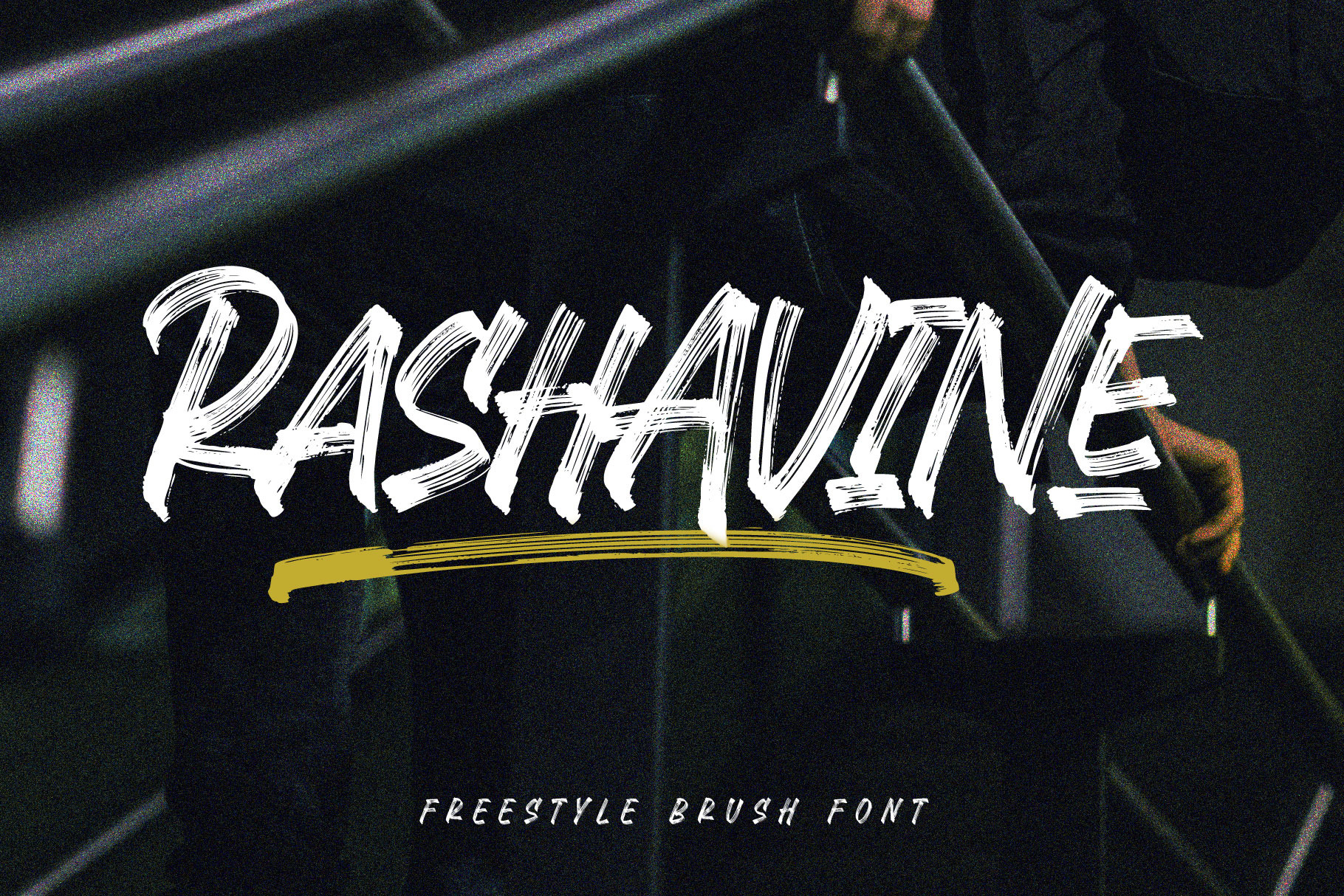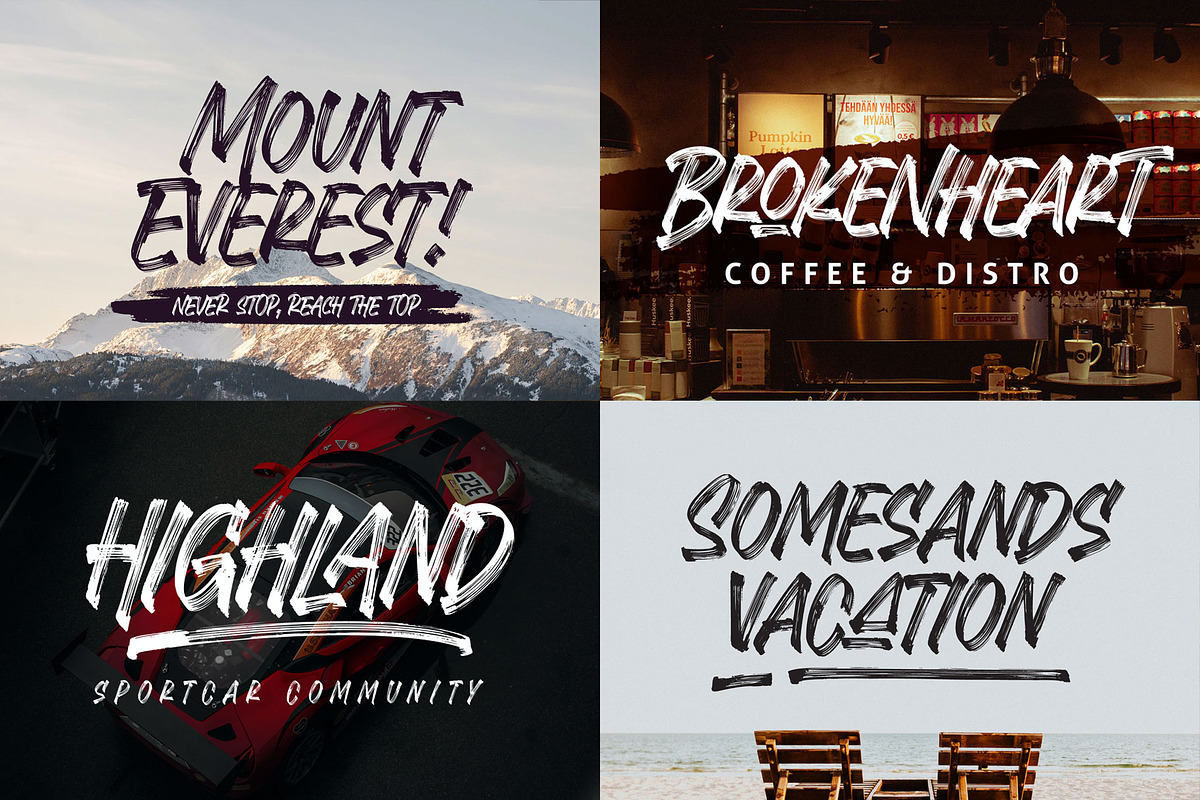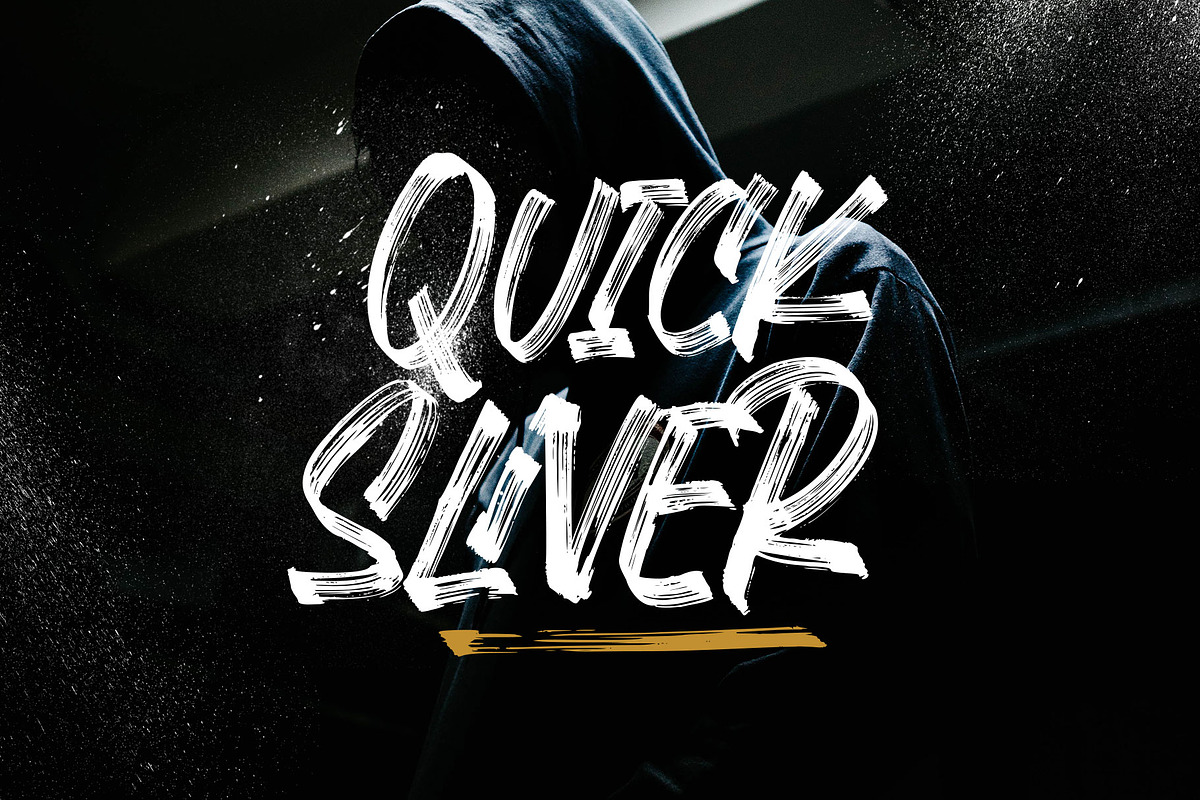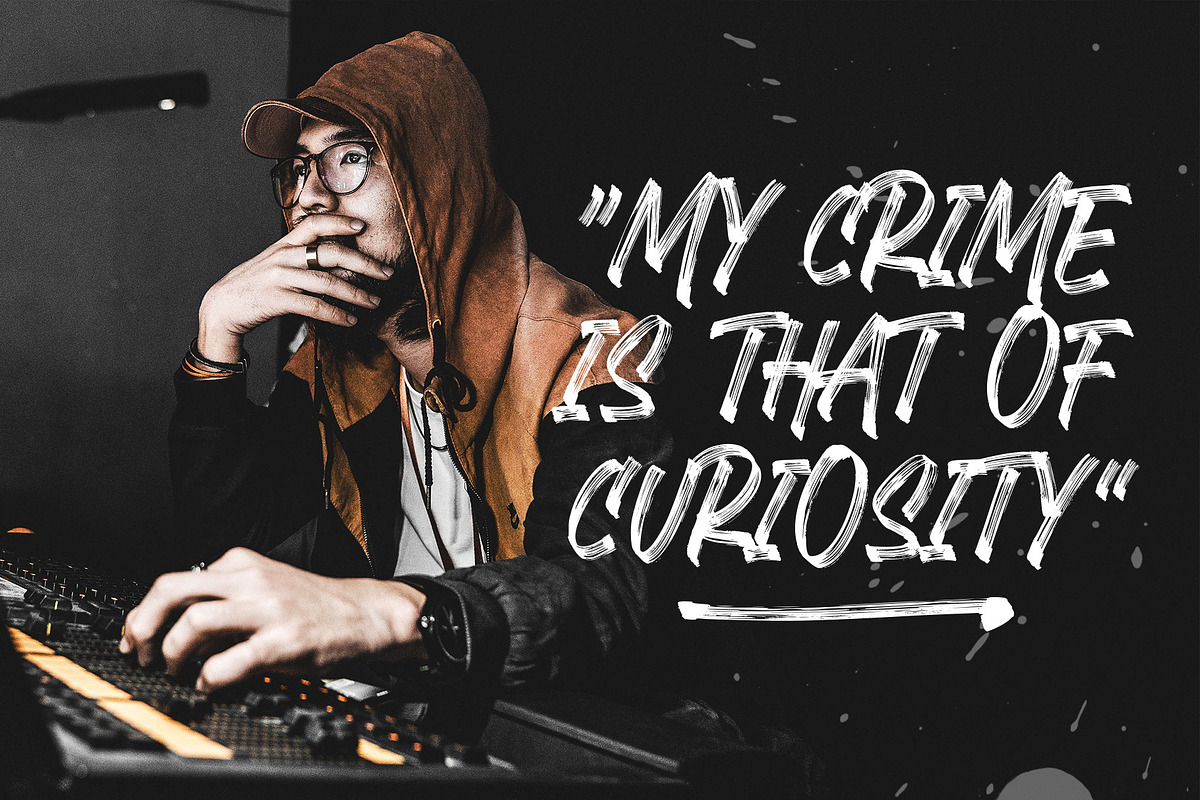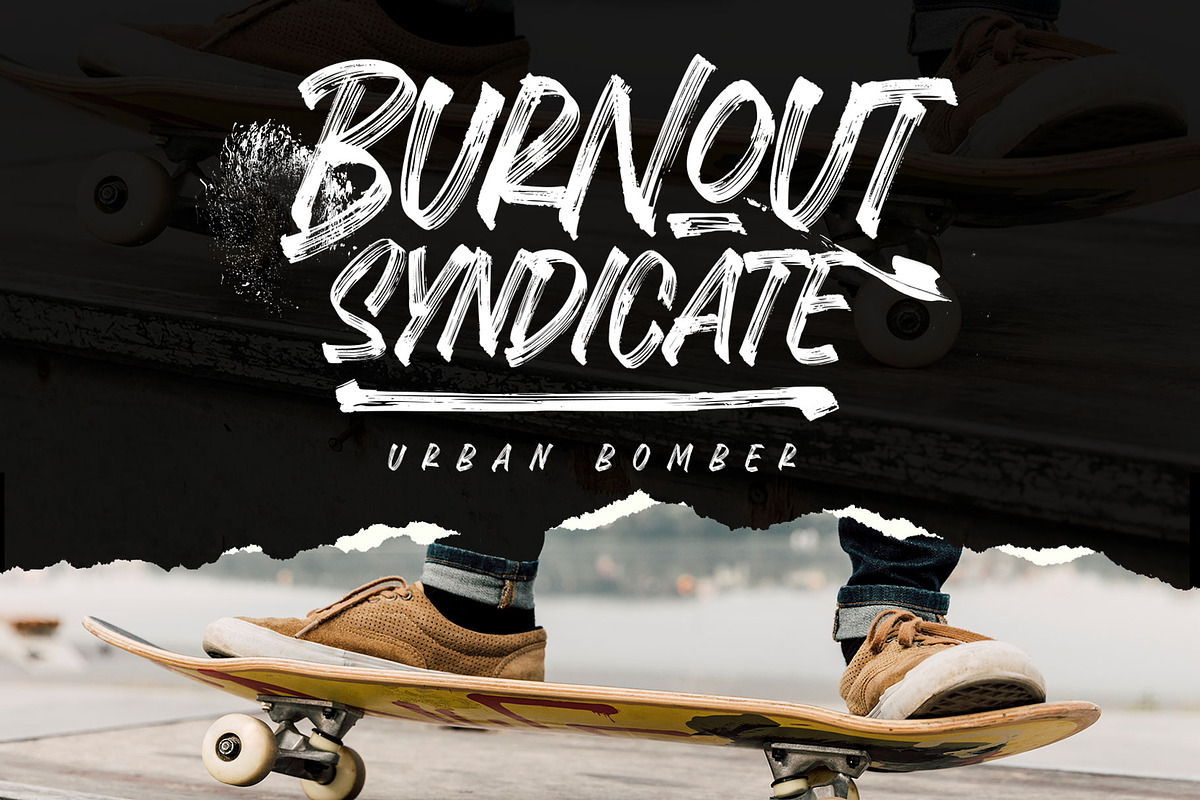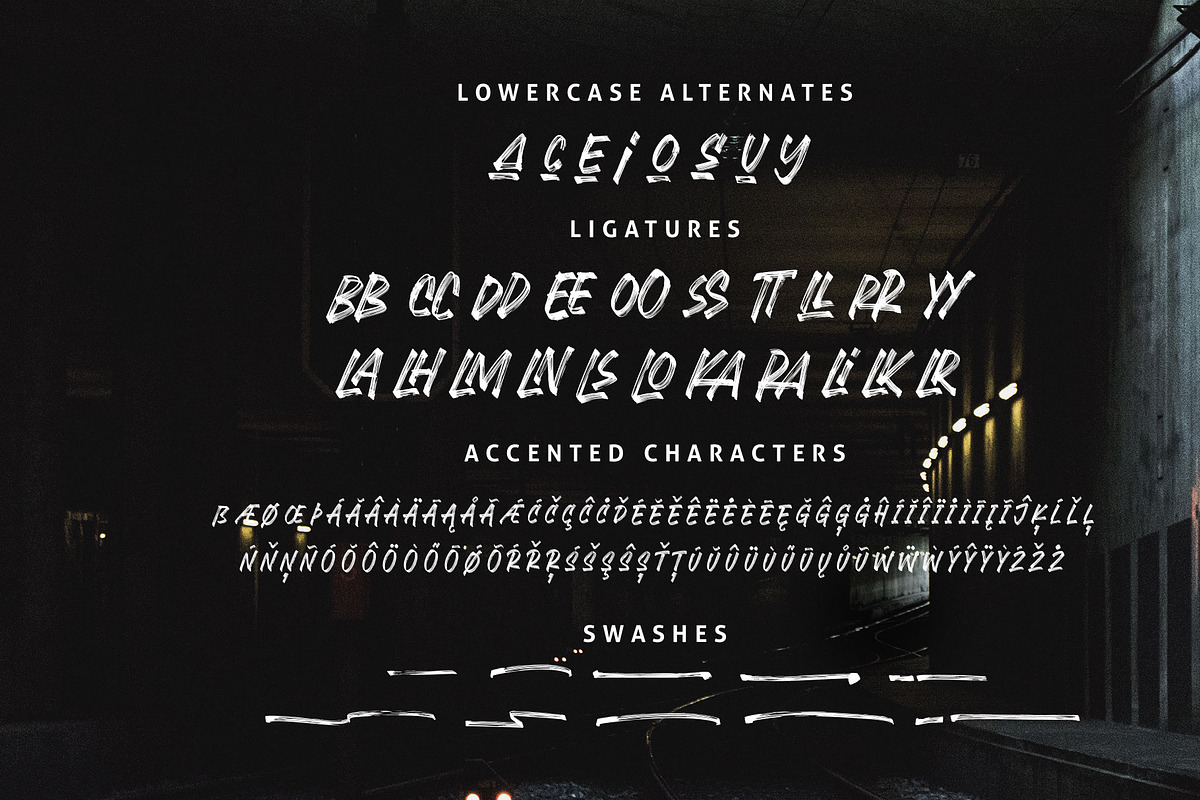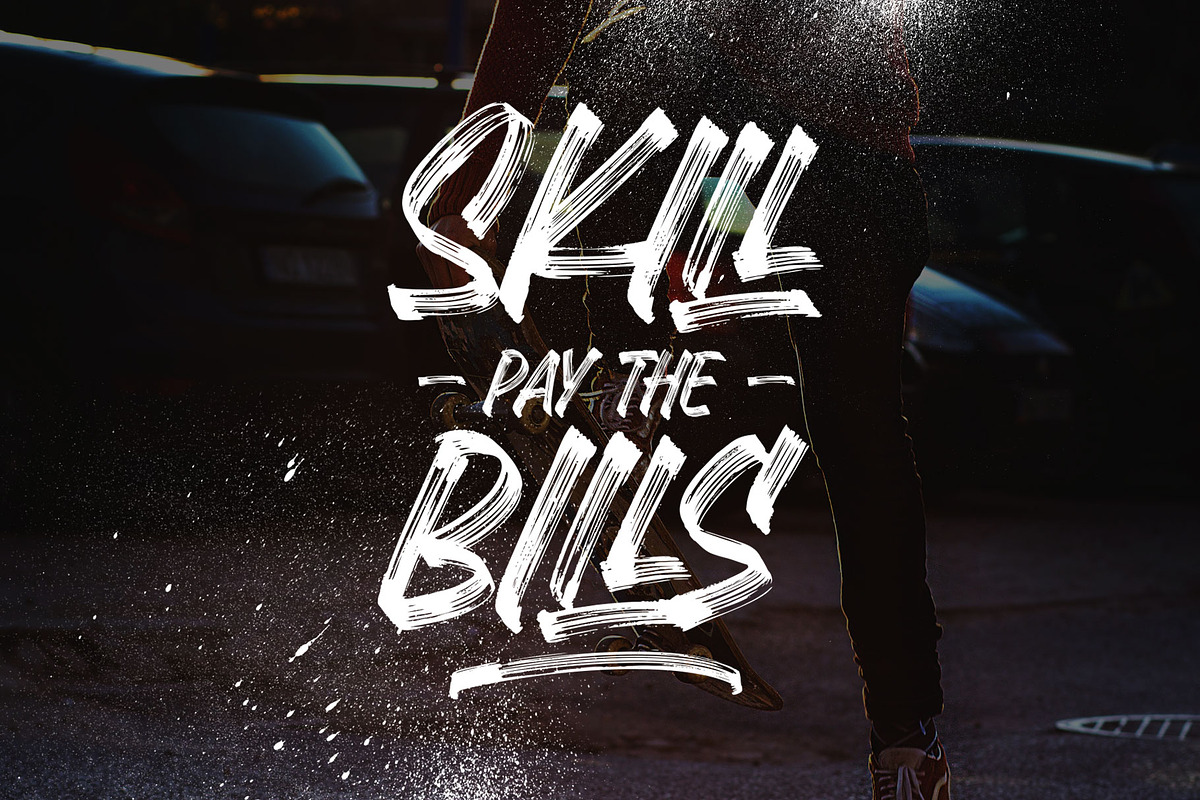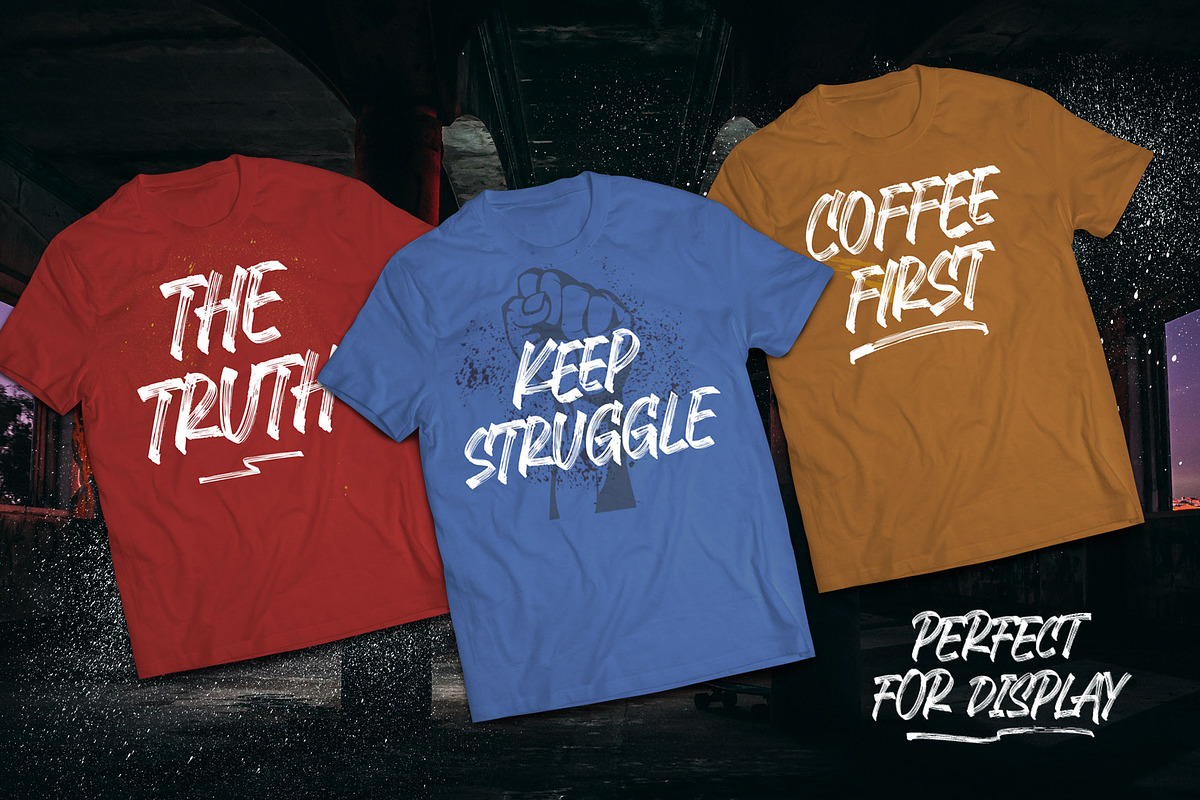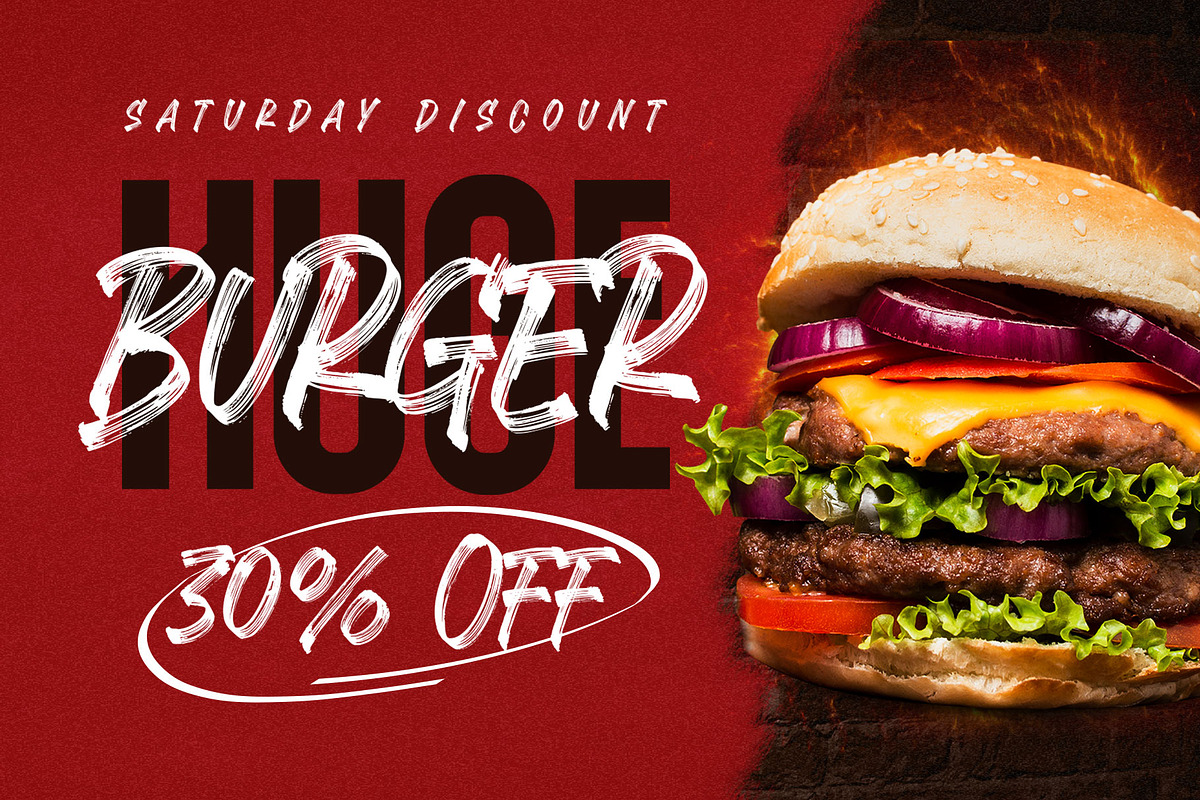
Rashavine - Street Font
Introducing our new brush exploration, Rashavine. A freestyle brush font made with the high attention of the brush details.
This font has the feel of energic, which challenges you to create a powerful design and fast! Rashavine complete with alternates characters, ligatures, and swashes which you can apply on T-shirt, label, title, books, hoodie, logos, sticker, website, and many more!
Rashavine is an all-caps font that you can mix and match from different letterforms. Accented characters available for many different languages. Also, you can access the swashes with ease, by simply type 'underscore' and 1 to 0' from the middle of your word.